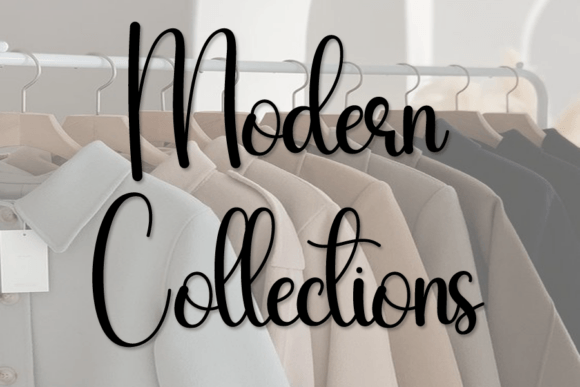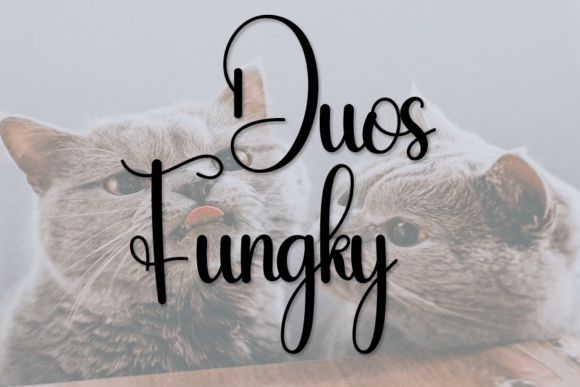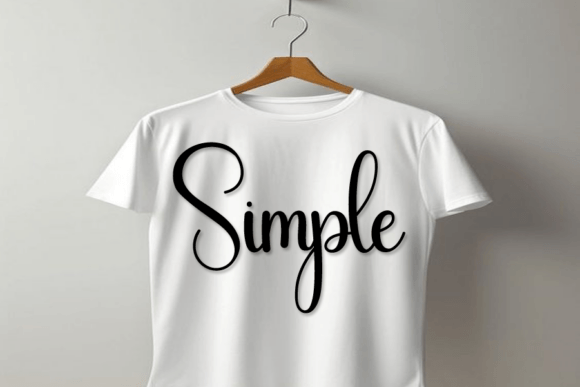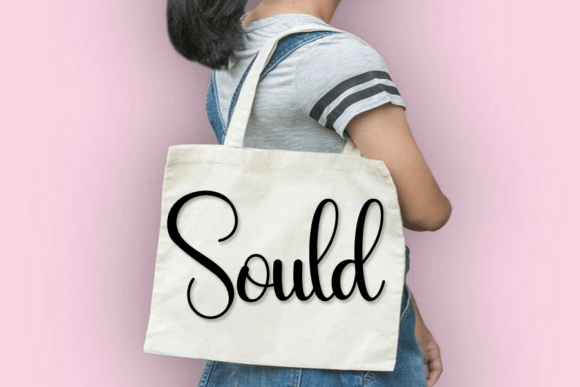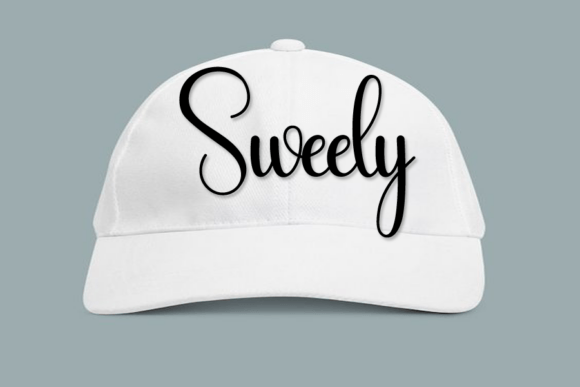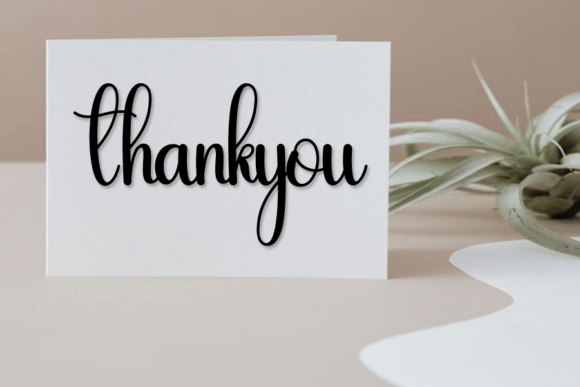
Introduction to Simple Choliga Font Font
Fonts play a crucial role in design, and the Simple Choliga Font font is a typeface that brings both character and versatility to any project. Whether you’re working on a branding project, a website, or a print design, the Simple Choliga Font font offers a unique style that can elevate your work.
Simple Choliga is a classic and simple handwritten script, created in a random and free style.
Simple Choliga is a classic and simple handwritten script, created in a random and free style. It is suitable for logotype, headline font, in corporate identity, brand identity, apparel industry, post
Key Features of Simple Choliga Font Font
The Simple Choliga Font font is more than just a typeface – it’s a design tool that helps you communicate your message with style and clarity. Its unique character set and versatile design make it suitable for a wide range of applications, from elegant invitations to bold headlines.
With its carefully crafted letterforms and balanced proportions, the Simple Choliga Font font ensures readability and visual appeal across all mediums.
What makes Simple Choliga Font font special?
The Simple Choliga Font font stands out with its unique design, exceptional readability, and versatility across various design applications.